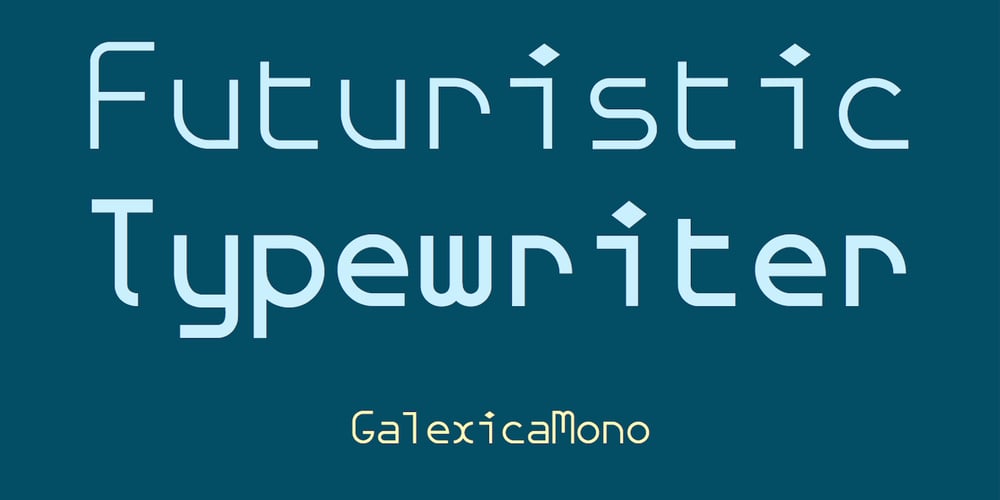
Galexica Mono Font Family was designed by Robert Schenk and published by Ingrimayne Type. Galexica Mono contains 2 styles and family package options. GalexicaMono is an attempt to create a futuristic typewriter font, which may be an oxymoron. Unlike most typewriter fonts, it is sans-serif. The family has two weights, plain and bold, each with an oblique style. For a variant of the design that is not monospaced, see Galexica.